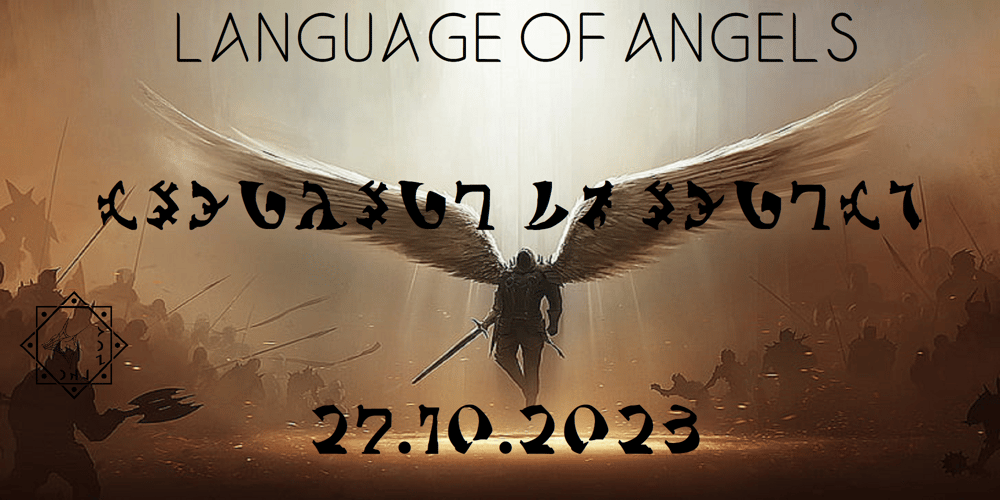
Ongunkan Enochian Script Font Family was designed by Osman Nuri ALKAN and published by Runic World Tamgacı. Ongunkan Enochian Script contains 1 styles and family package options. I drew this font staying true to the original design. The letter table in the relevant book was taken as reference.Enochian (/ɪˈnoʊkiən/ ə-NOH-kee-ən) is an occult constructed language[3] — said by its originators to have been received from angels — recorded in the private journals of John Dee and his colleague Edward Kelley in late 16th-century England.[4] Kelley was a scryer who worked with Dee in his magical investigations. The language is integral to the practice of Enochian magic.